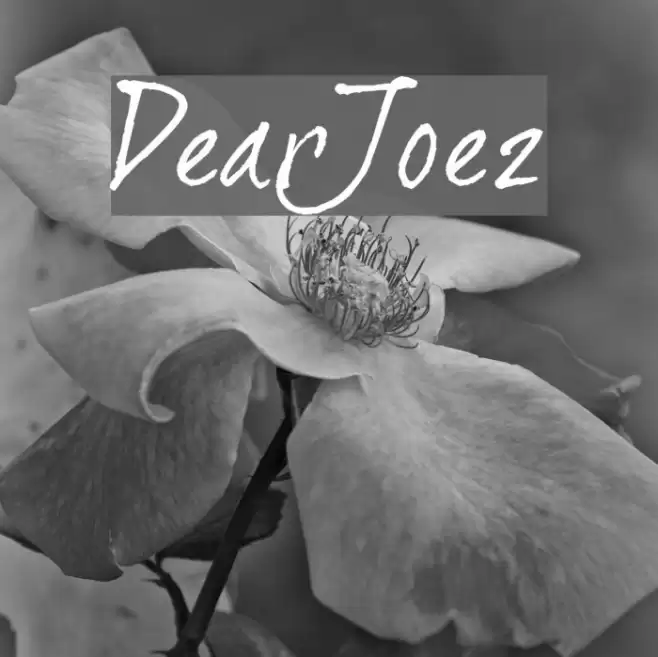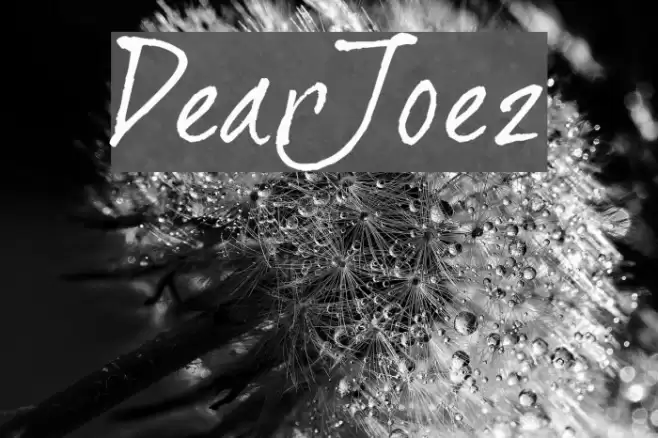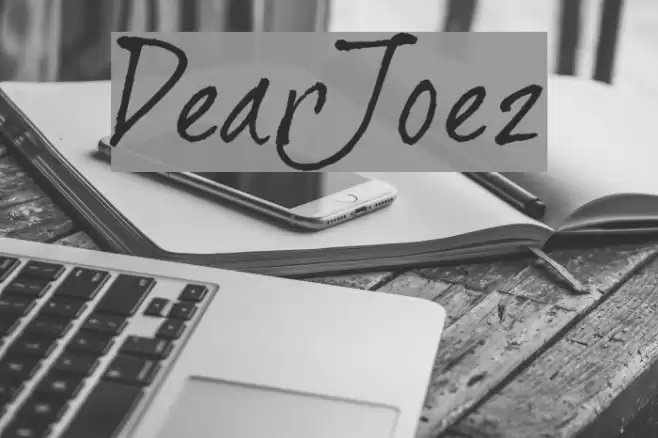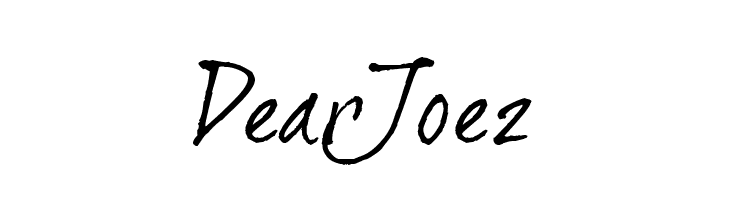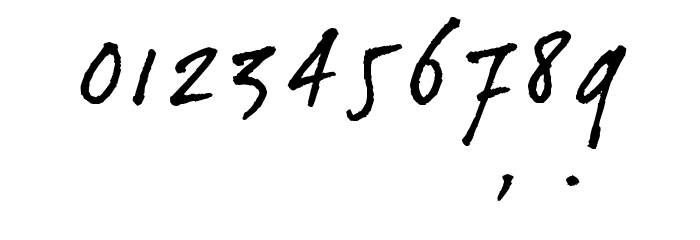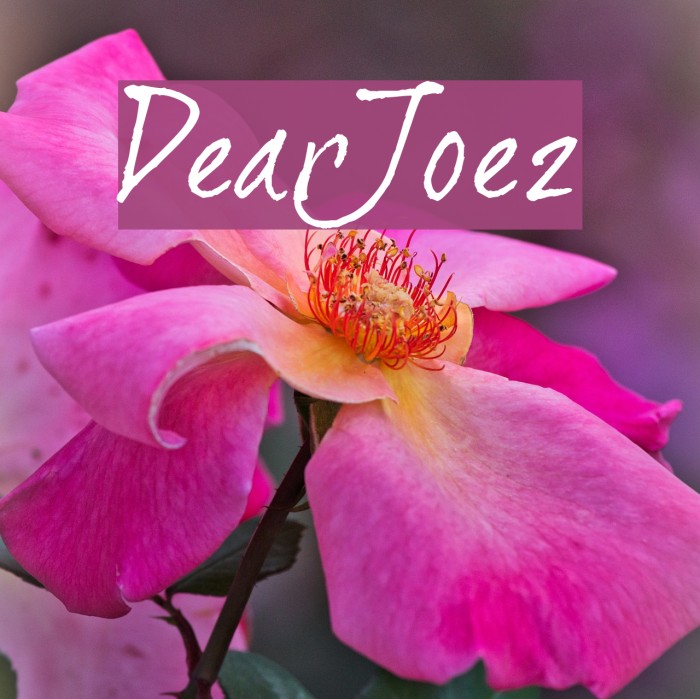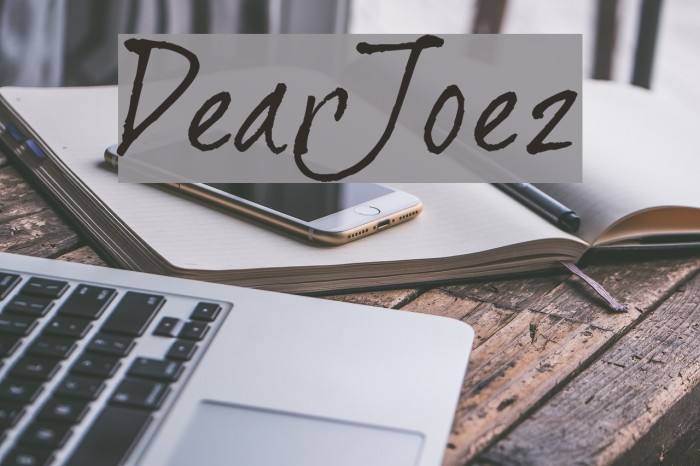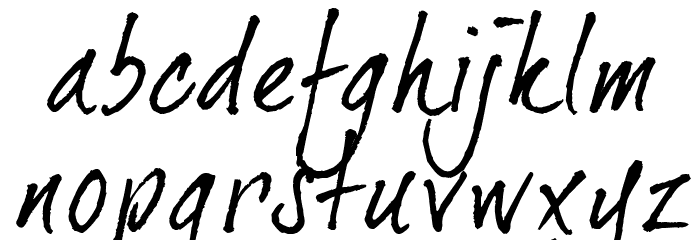
DearJoe2 Font
DearJoe2 Description
This font exudes a handwritten, casual style with a touch of elegance. The letters are slightly slanted, giving it a dynamic and fluid appearance. The strokes vary in thickness, adding a natural, organic feel typical of handwriting. The uppercase letters are bold and prominent, while the lowercase letters maintain a consistent flow. Numbers and special characters are crafted with the same attention to detail, ensuring uniformity across all glyphs. This font is perfect for projects that require a personal, human touch, such as invitations, greeting cards, or branding that aims to convey warmth and approachability.
A handwritten, casual font with dynamic strokes and a personal touch from Uncategorized fonts.
- Proposed Projects: Ideal for invitations, greeting cards, personal branding, and creative projects.
- Overall Style: Casual, Elegant
- Use Case: Headlines, Logos, Invitations